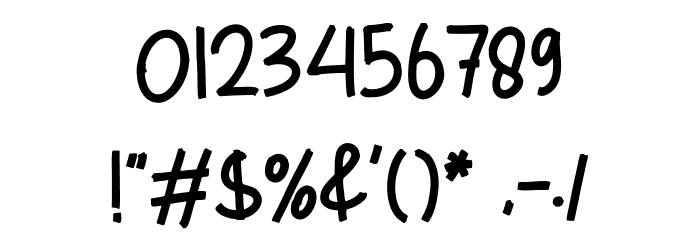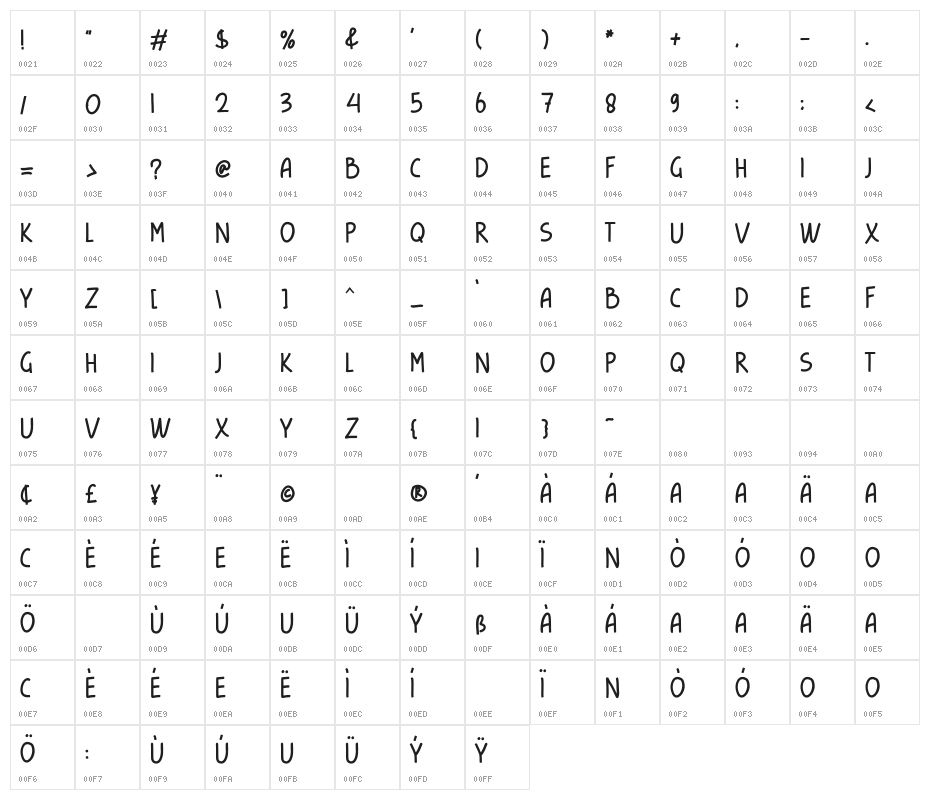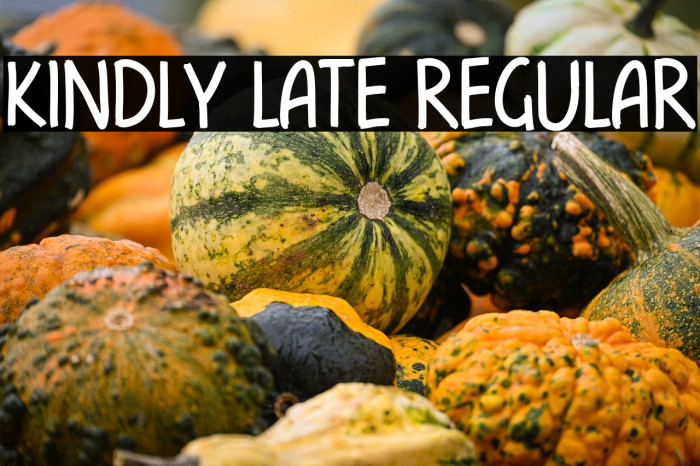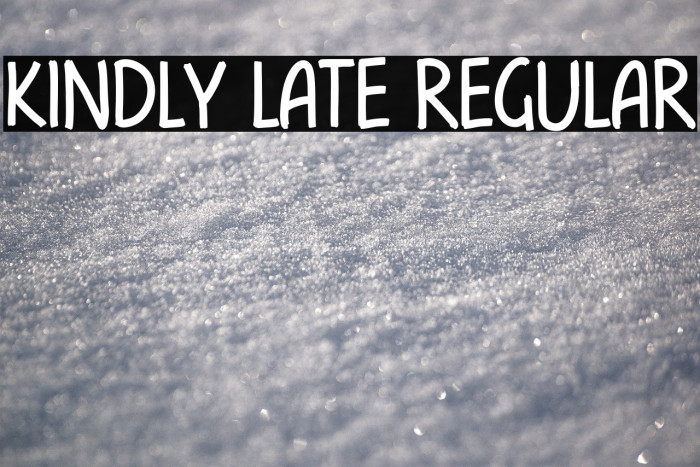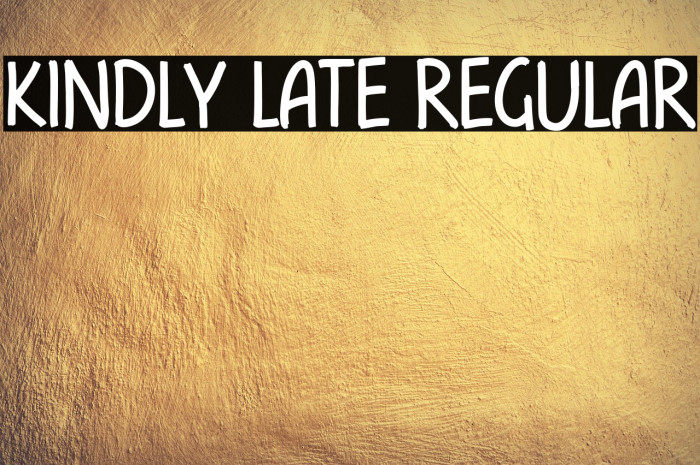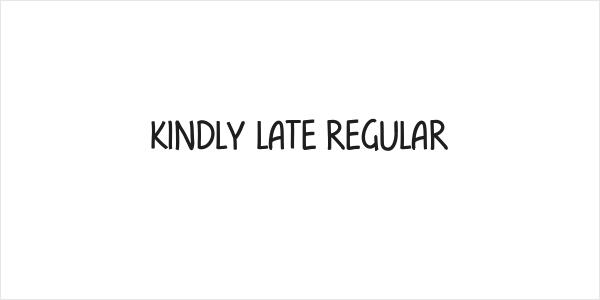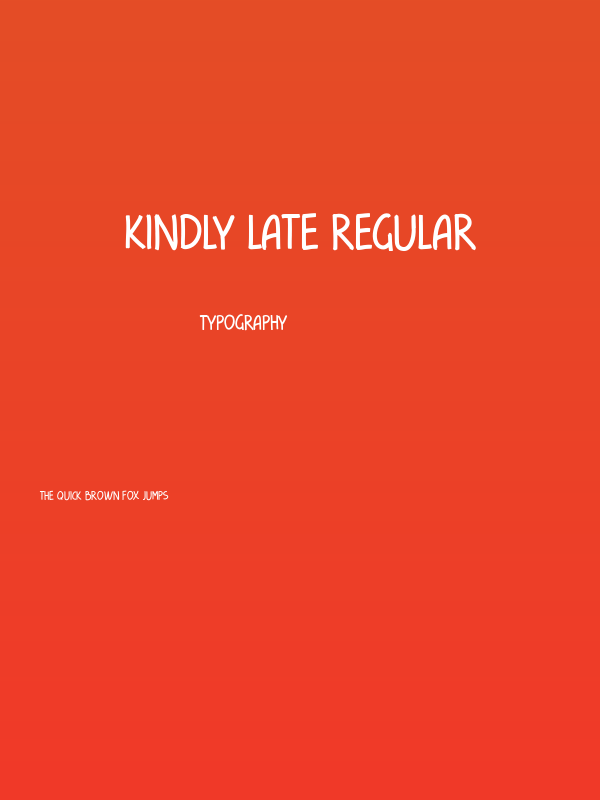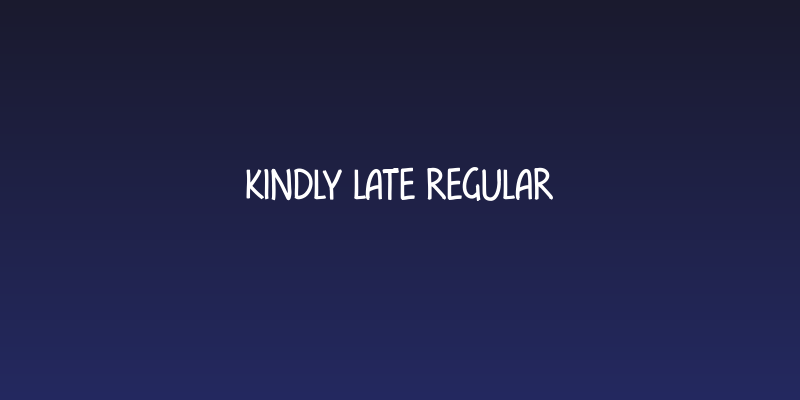
kindly late Regular Font
kindly late Regular Description
This font features a playful and casual handwritten style, characterized by its smooth curves and slightly irregular strokes that give it a friendly and approachable appearance. The letters are well-spaced, ensuring readability while maintaining a relaxed aesthetic. The uppercase and lowercase characters are consistent in style, with rounded edges and a slight tilt that adds to the informal feel. The numerals and special characters follow the same design principles, making the font versatile for various uses. Its simplicity and charm make it suitable for projects that require a personal touch.
| Proposed Projects | Ideal for greeting cards, invitations, children's books, and casual branding. |